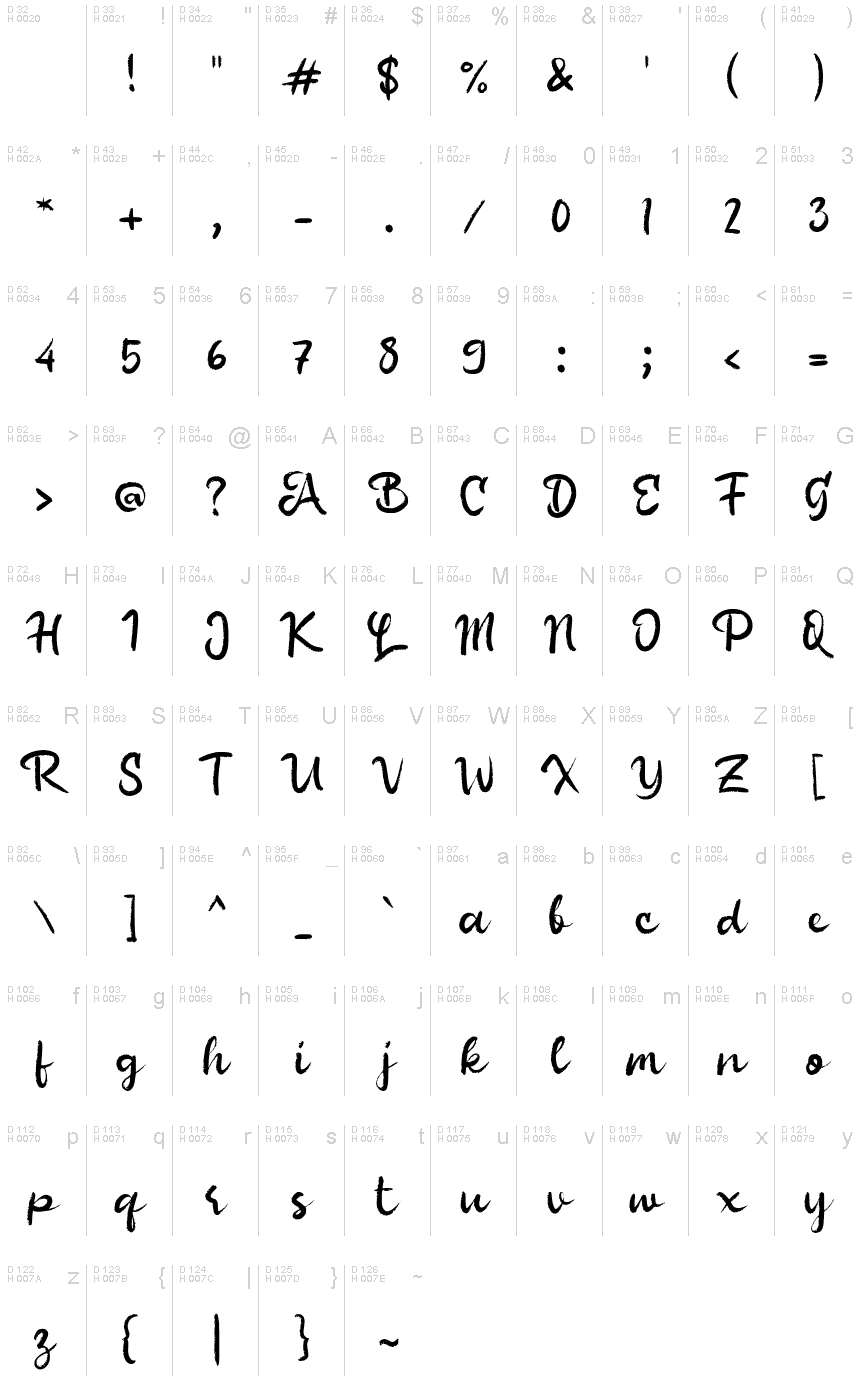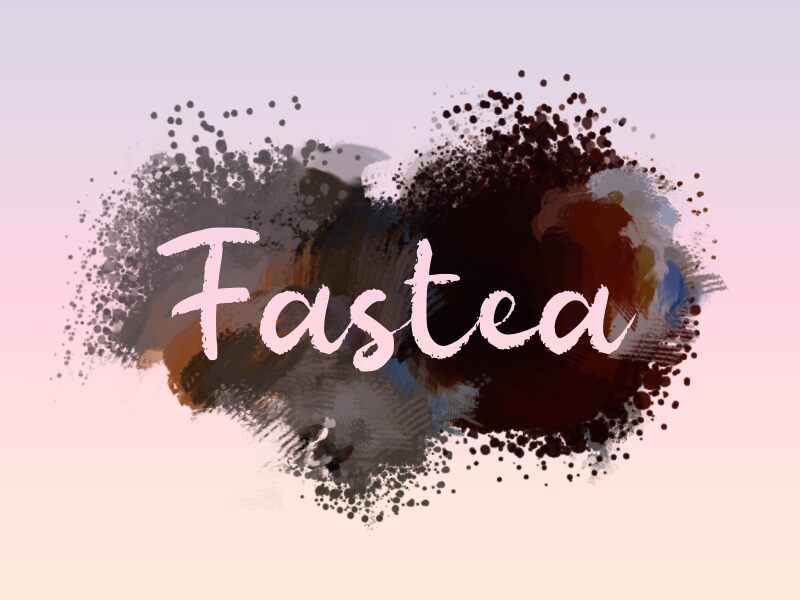
Fastea
Fastea, created by wep, is a captivating brush font that exudes energy and artistic flair. With its semi-bold weight, it strikes the perfect balance between boldness and elegance.
This versatile font is suitable for a wide range of creative projects, such as logo designs for fashion brands seeking a modern and edgy look. Its expressive strokes make it an excellent choice for album covers of indie bands or posters promoting music festivals.
Fastea's unique style also lends itself well to branding materials for craft breweries or artisan coffee shops aiming to convey their unique personality and handcrafted approach.